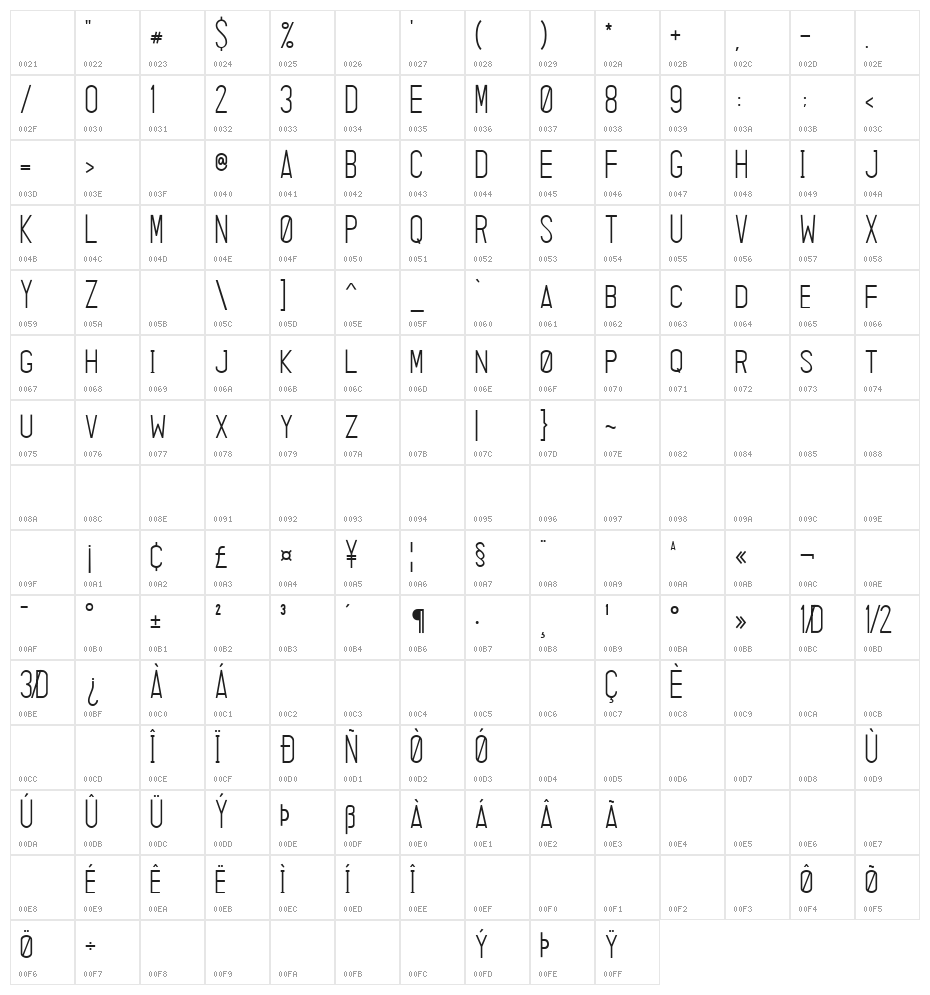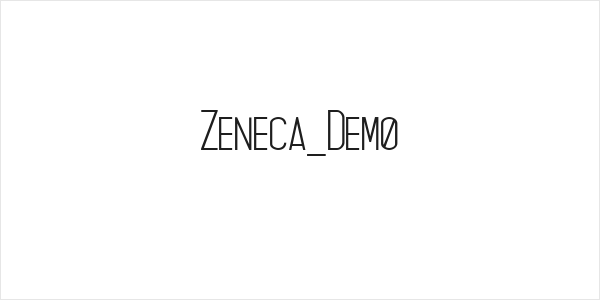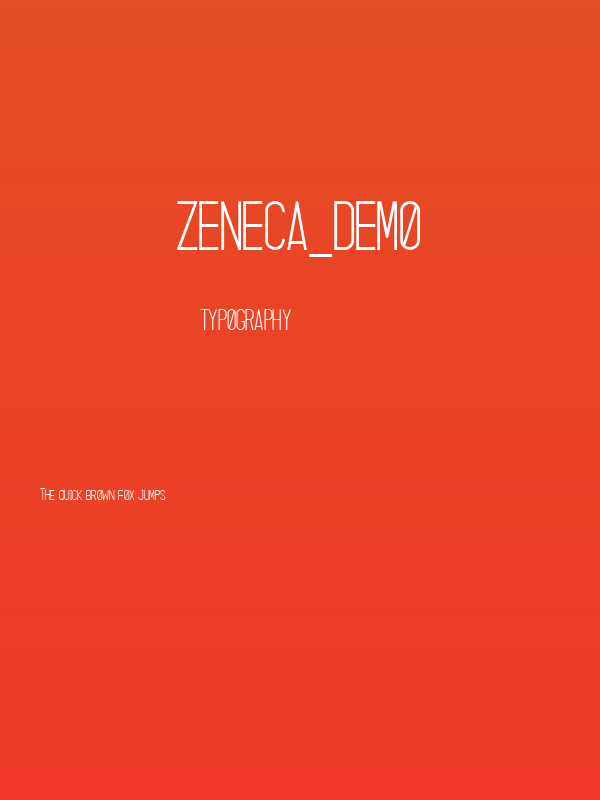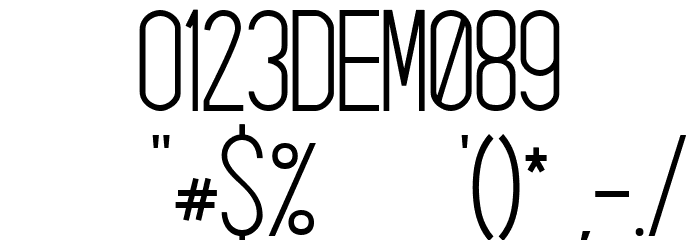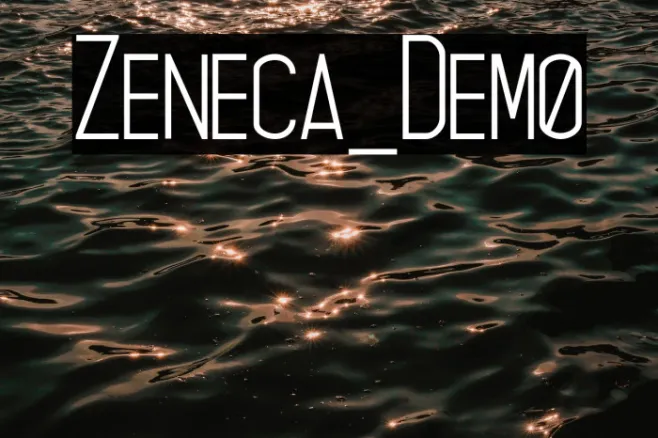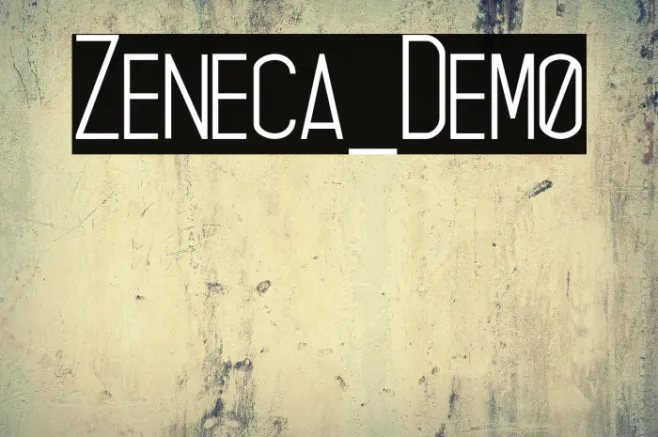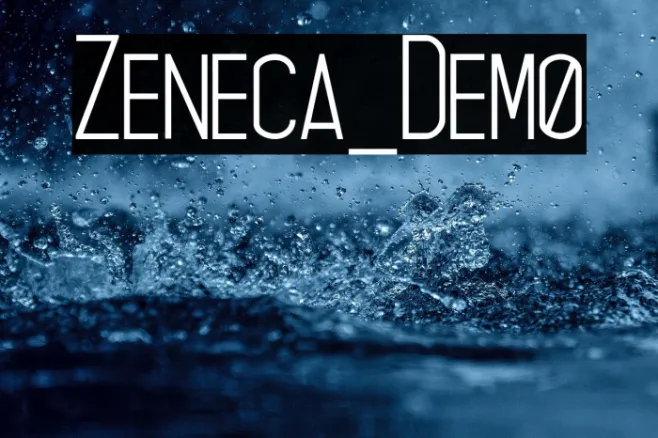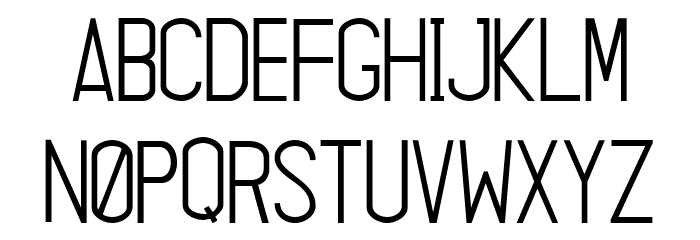
Zeneca_Demo Font
Zeneca_Demo Description
This font features a modern, geometric sans-serif design with clean lines and a minimalist aesthetic. The characters are tall and narrow, giving it an elegant and sophisticated appearance. The uppercase letters are uniform in height, while the lowercase letters maintain a consistent baseline, enhancing readability. The numerals are distinct and align well with the overall style, making them suitable for various applications. Special characters are designed with the same geometric precision, ensuring a cohesive look across all glyphs. The font's simplicity and clarity make it ideal for contemporary design projects.
| Proposed Projects | Ideal for branding, editorial design, web design, and advertising where a modern and clean aesthetic is desired. |